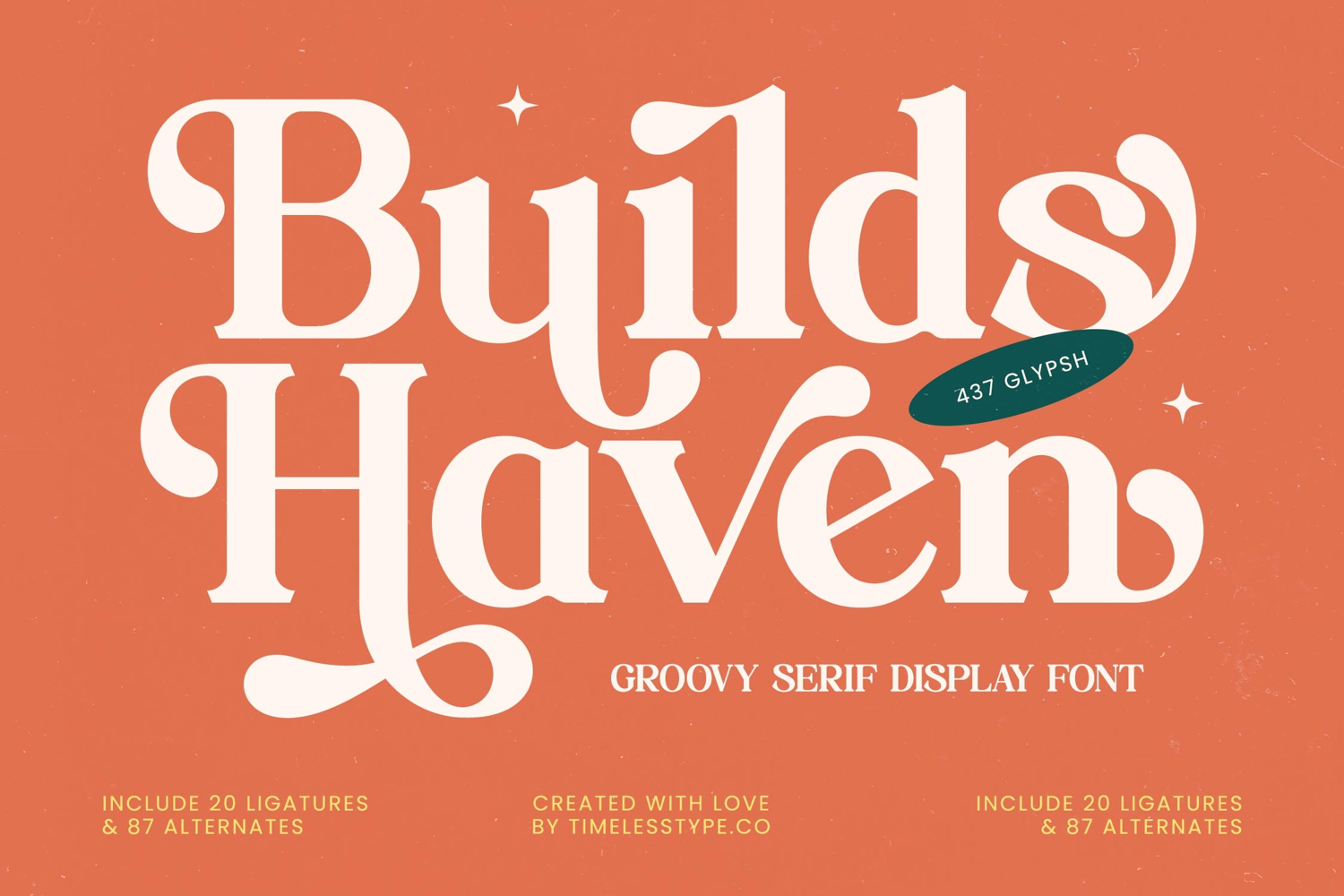
Builds Haven - Groovy Serif Display Font
Discover the perfect blend of nostalgia and contemporary elegance with Font Builds Haven - Groovy Serif Display Font Serif Display. This exceptional display font redefines visual appeal with its distinctive high-contrast strokes and captivating groovy serifs. It masterfully combines vintage charm with modern sophistication, ensuring your designs instantly command attention and leave a lasting impression.
Unleash unparalleled creative flexibility with Font Builds Haven - Groovy Serif Display Font Serif Display, featuring an impressive collection of 20 ligatures and 87 alternates. These intricate design elements provide boundless opportunities to craft truly unique and expressive typography, delivering significant visual impact. With its extensive multilingual support, Font Builds Haven - Groovy Serif Display Font Serif Display adapts seamlessly across global markets, making it incredibly versatile for international projects.
Elevate your projects with the refined aesthetic of Font Builds Haven - Groovy Serif Display Font Serif Display, making it perfect for a range of high-end applications. It excels in luxury branding, packaging, and editorial design, where a touch of glamour and sophistication is paramount. Ideal for headlines, magazine layouts, premium product labels, fashion branding, and boutique business identities, it guarantees a truly memorable presence.